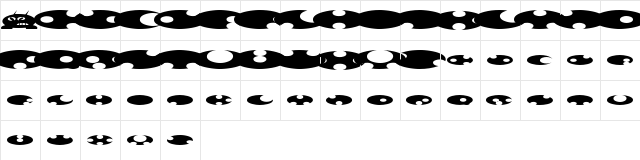
Ufo Regular Font Preview
Ufo Regular
Ufo Regular Font Details
Design Context for Ufo Typeface
Ufo is a composed and adaptable typeface that performs quietly and consistently across a wide range of design contexts.